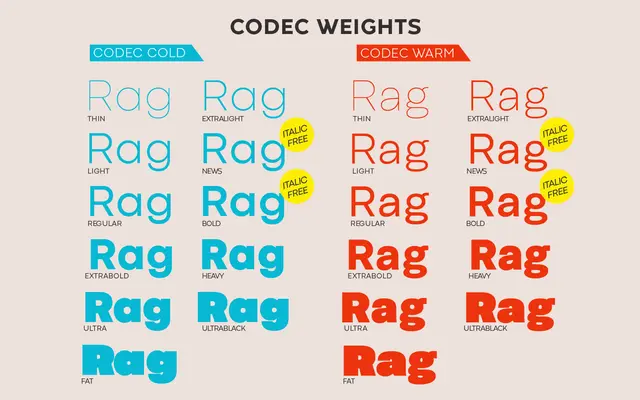
Codec Warm/Cold
Zetafonts · Cosimo Lorenzo Pancini, Francesco Canovaro, Andrea Tartarelli · 2018
A geometric sans offered in two systematic subfamilies, Codec Cold and Codec Warm, built on the same skeleton but distinguished by terminal treatment and letterform construction.
Rather than making arbitrary compromises between geometric rigour and humanist warmth, the designers split the difference into two coherent fonts sharing the same underlying skeleton. Codec Cold cuts terminals parallel or perpendicular to the baseline for a strict, constructed appearance; Codec Warm uses open diagonal cuts and two-storey forms for a gentler texture at text sizes. Both subfamilies span eleven weights from Thin to Fat with matching italics, support 218 languages across Latin, Greek and Cyrillic scripts, and include Logo variants with active discretionary ligatures and tighter metrics for display and identity work.
A geometric sans rooted in Futura's constructionist logic, offered in two systematic variants: Cold (strict horizontal/vertical terminals) and Warm (diagonal cuts and two-storey forms), placing it firmly in the geometric sans category with a humanist inflection option.